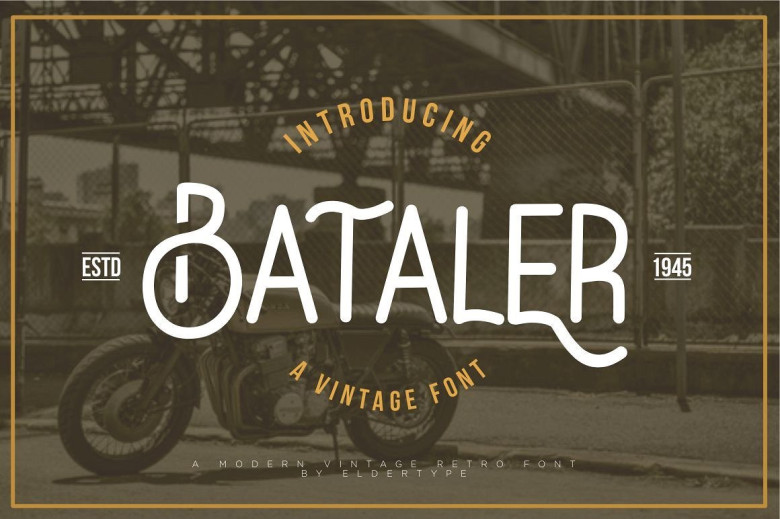
Bataler Typeface
A modern vintage retro font by Eldertype Studio. Introducing Bataler Vintage Font. Bataler Typeface is a vintage retro font with elegent and professional style, perfect for adding some romance and charm to your designs. This script functions most strongly as a display or headline font. suitable for logo, logotype, branding,wedding, fashion, label, book cover, t-shirt, instagram post, and other